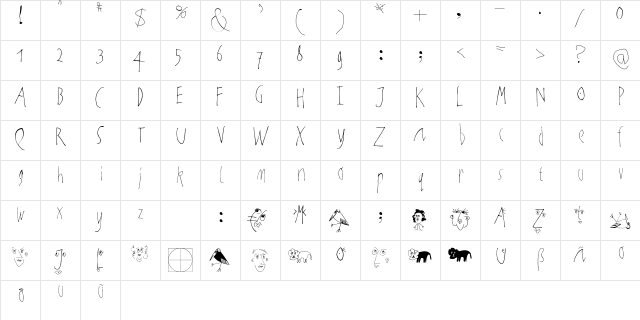
NoArtOnlyChaos-Light Regular
Design Context for NoArtOnlyChaos-Light Typeface
NoArtOnlyChaos-Light is a composed and adaptable typeface that performs quietly and consistently across a wide range of design contexts. The delicate stroke weight brings airiness and refinement to layouts.